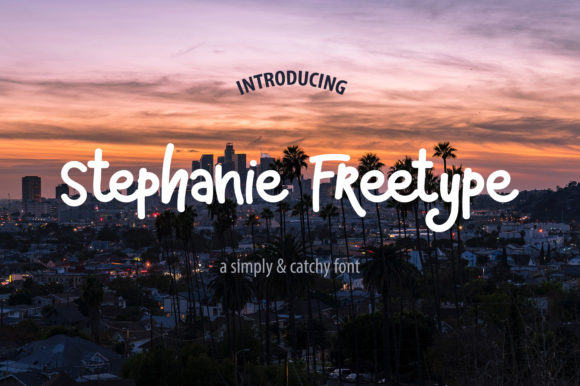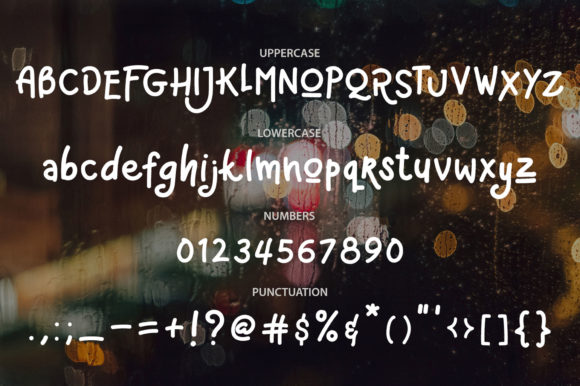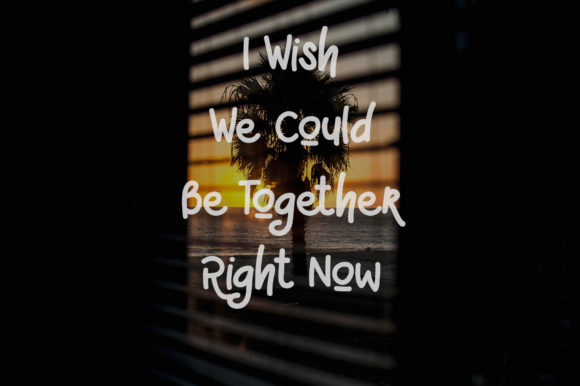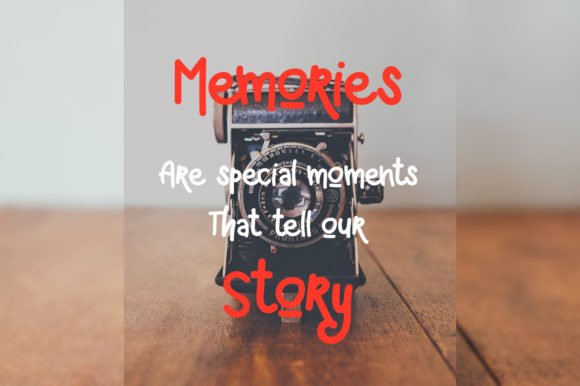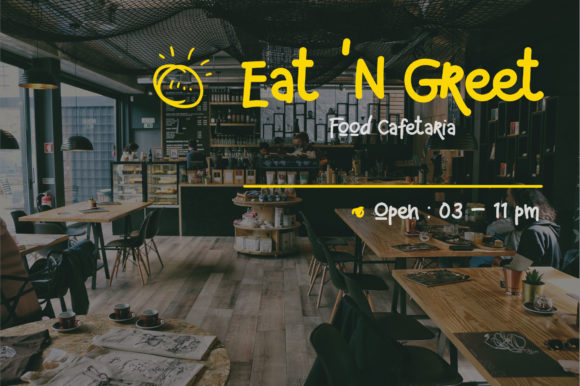
Stephanie Freetype Font
About Stephanie Freetype Font
The Stephanie Freetype is a regular handwritten font. It has a simply and catchy look, but is also great to add a friendly and warm touch to your branding designs and more!